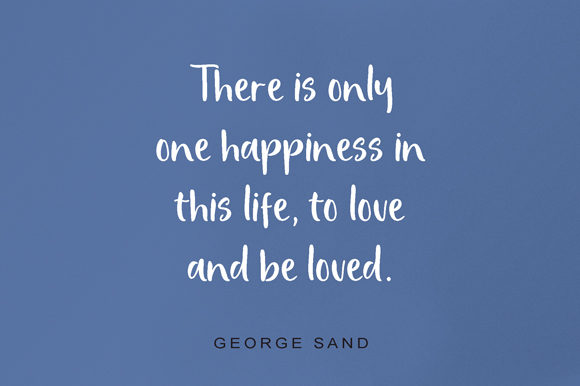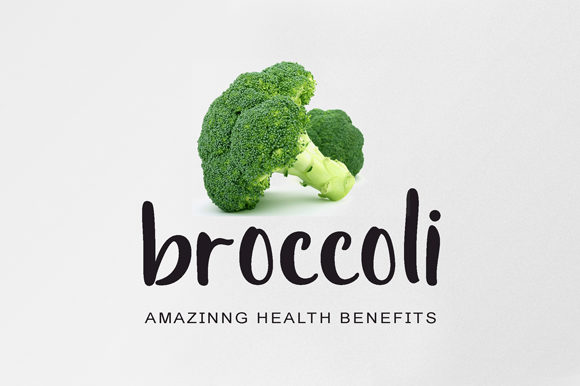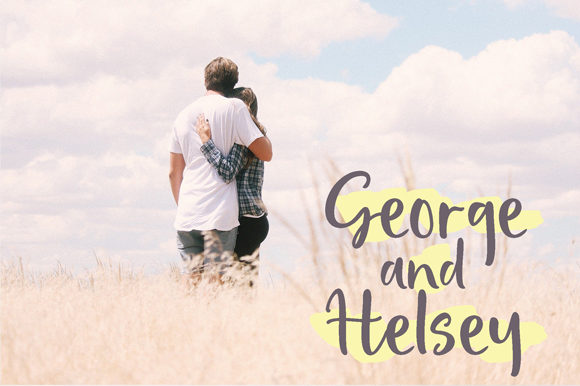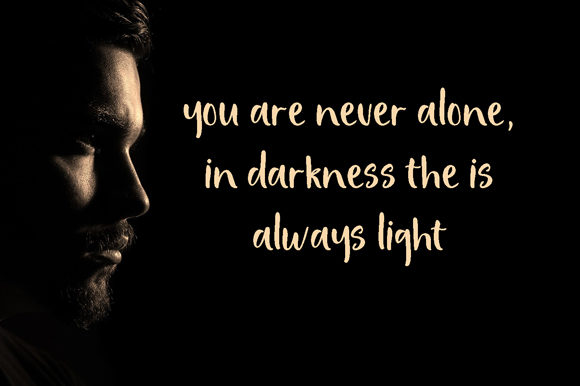
Introducing Glassy Font: The Perfect Addition to Your Fashion Branding and Editorial Designs
Are you a designer or crafter looking for a unique and stylish font to elevate your fashion branding or editorial designs? Look no further than Glassy Font! This bouncy handwritten font is defined by its smooth curves, making it perfect for adding a touch of elegance and sophistication to your projects.
What is Glassy Font?
Glassy Font is a modern, handwritten font that is designed to add a personal touch to your designs. Its smooth curves and flowing lines give it a sense of movement and energy, making it perfect for fashion branding, editorial designs, and more. Whether you’re creating a logo, heading, or body text, Glassy Font is sure to make a statement.
Key Features of Glassy Font
• Smooth Curves: Glassy Font is characterized by its smooth, flowing curves that give it a sense of elegance and sophistication.
• Bouncy Handwritten Style: The font has a bouncy, handwritten feel that adds a personal touch to your designs.
• Fashion Branding: Glassy Font is perfect for fashion branding, including logos, labels, and packaging.
• Editorial Designs: The font is also great for editorial designs, including magazines, blogs, and books.
• Easily Readable: Despite its elegant feel, Glassy Font is easily readable, making it perfect for body text and headings.
Why Choose Glassy Font?
There are many reasons why Glassy Font is the perfect choice for your fashion branding and editorial designs. Here are just a few:
• Unique and Stylish: Glassy Font is a unique and stylish font that will set your designs apart from the crowd.
• Versatile: The font is versatile and can be used for a wide range of projects, from fashion branding to editorial designs.
• Elegant and Sophisticated: Glassy Font adds a touch of elegance and sophistication to your designs, making it perfect for high-end brands and publications.
• Easily Customizable: The font is easily customizable, allowing you to adjust the size, color, and style to fit your needs.
How to Use Glassy Font in Your Designs
Using Glassy Font in your designs is easy! Here are a few tips to get you started:
• Pair it with Other Fonts: Glassy Font pairs well with other fonts, including sans-serif and serif fonts.
• Use it for Headings and Titles: The font is perfect for headings and titles, adding a touch of elegance and sophistication to your designs.
• Add it to Your Logo: Glassy Font is also great for logos, adding a personal touch and making your brand stand out.
• Experiment with Colors: The font looks great in a variety of colors, so don’t be afraid to experiment and find the perfect hue for your design.
In conclusion, Glassy Font is a unique and stylish font that is perfect for fashion branding and editorial designs. Its smooth curves and bouncy handwritten style make it a great addition to any project, and its versatility and customizability make it easy to use. Whether you’re a designer or crafter, Glassy Font is sure to become a favorite in your collection.